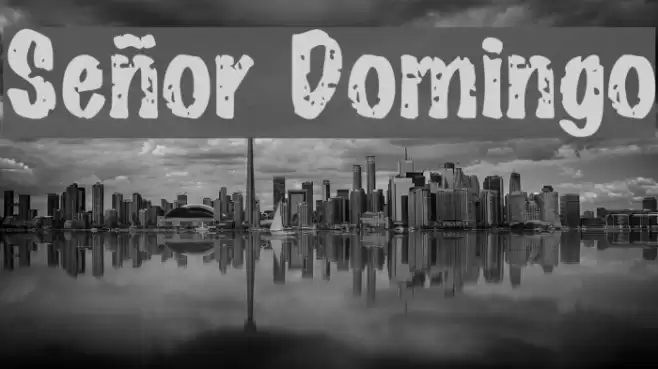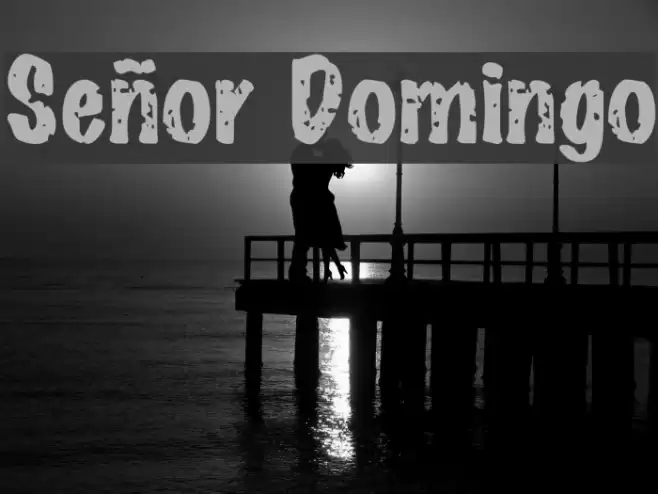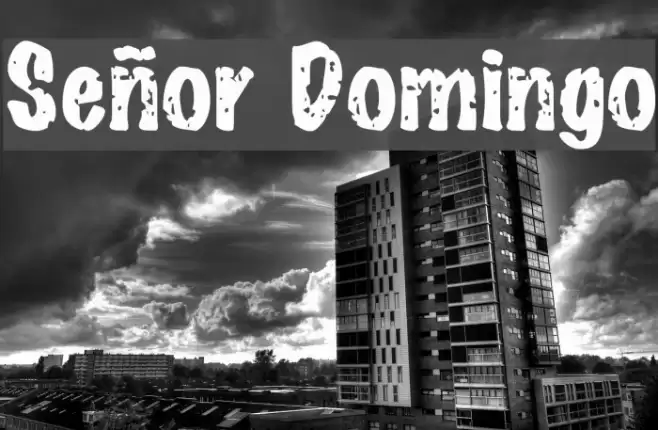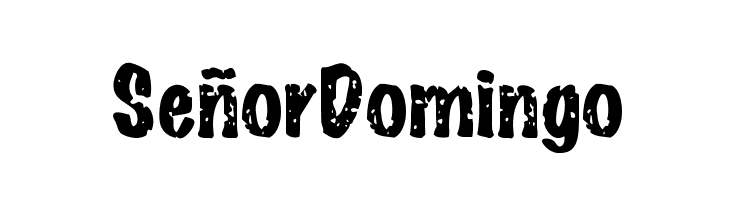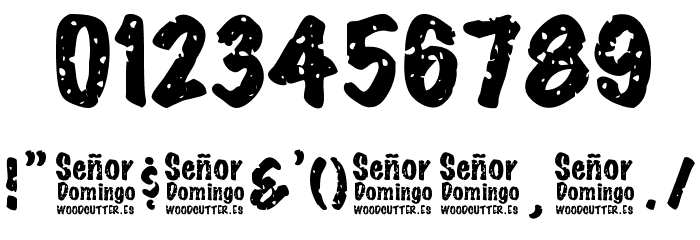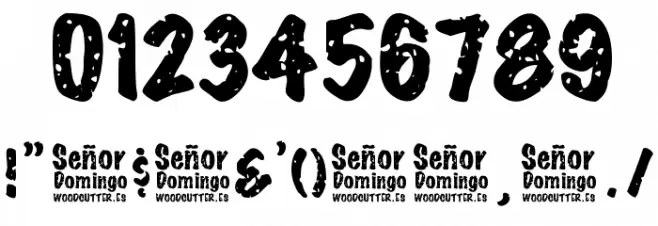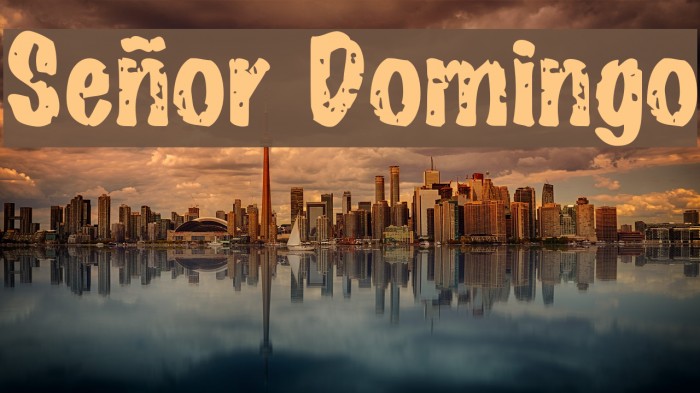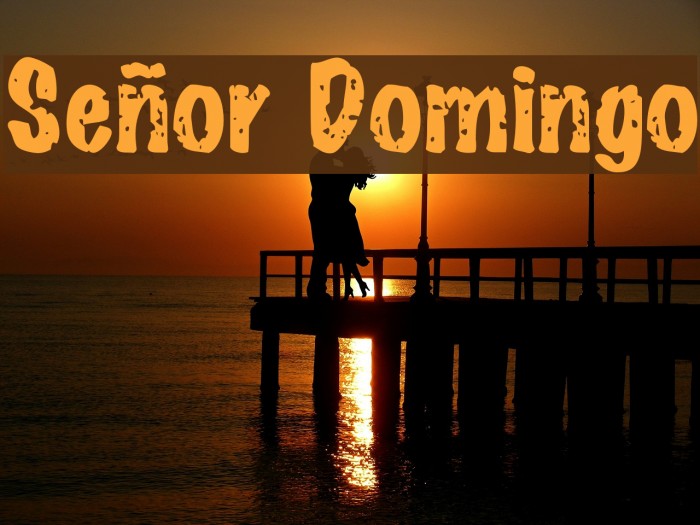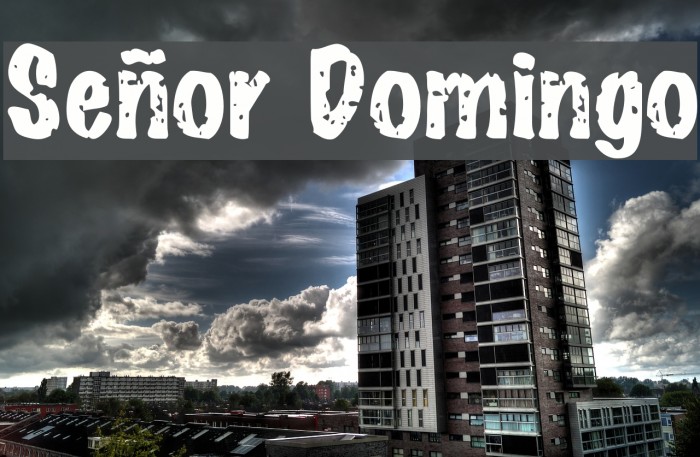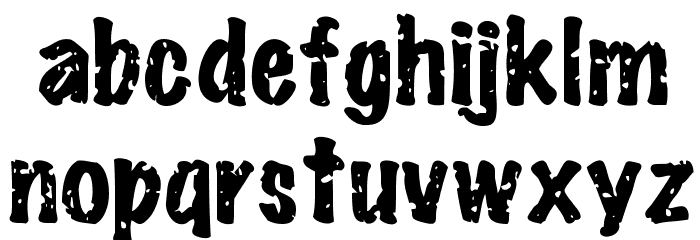
Señor Domingo
This font features a bold and distressed style, characterized by its rough, textured appearance that mimics a worn or weathered look. The uppercase and lowercase letters maintain a consistent thickness, with irregular edges and a slightly uneven baseline, adding to its rugged charm. The numerals and special characters follow the same design, ensuring a cohesive appearance across all glyphs. This font's unique style makes it stand out, offering a vintage and rustic feel that is both eye-catching and distinctive.
A bold, distressed font with a rugged, vintage appearance.
- Proposed Projects: Ideal for projects that require a rustic or vintage aesthetic, such as posters, logos, branding for artisanal products, or themed event invitations.
- Overall Style: Vintage
- Use Case: Logos, Posters, Branding